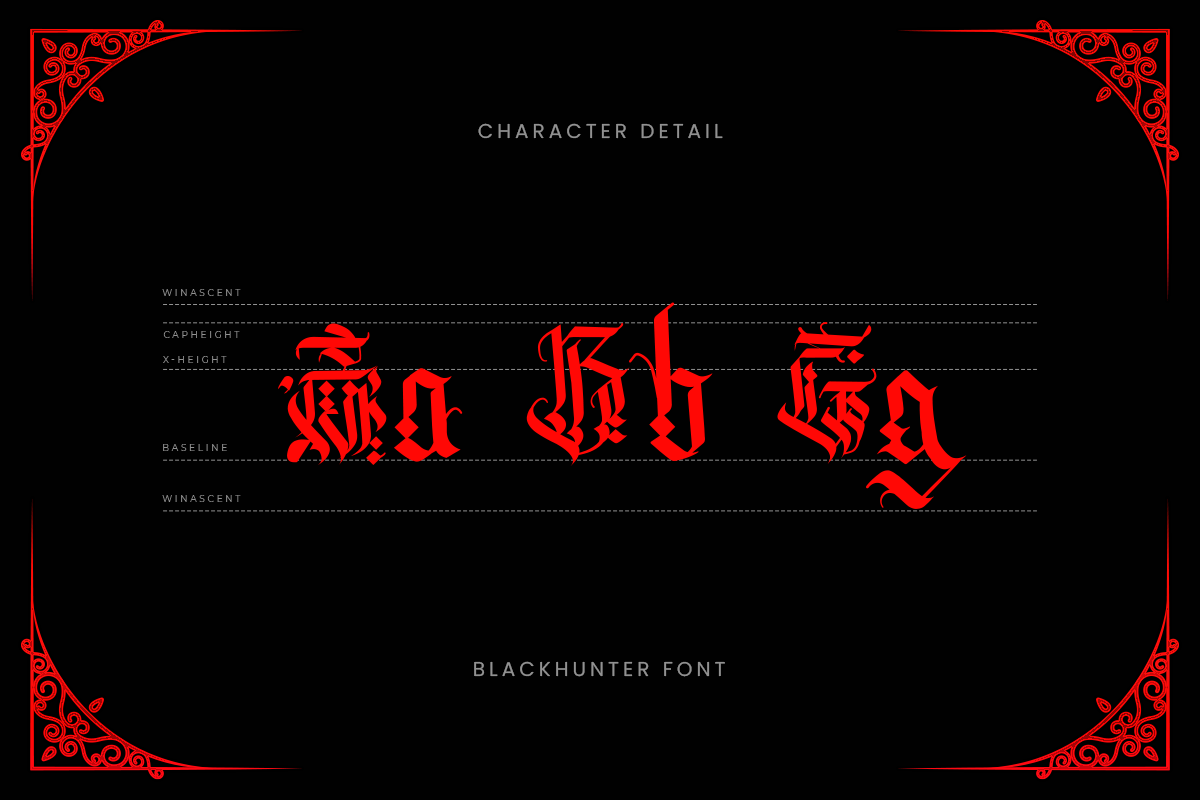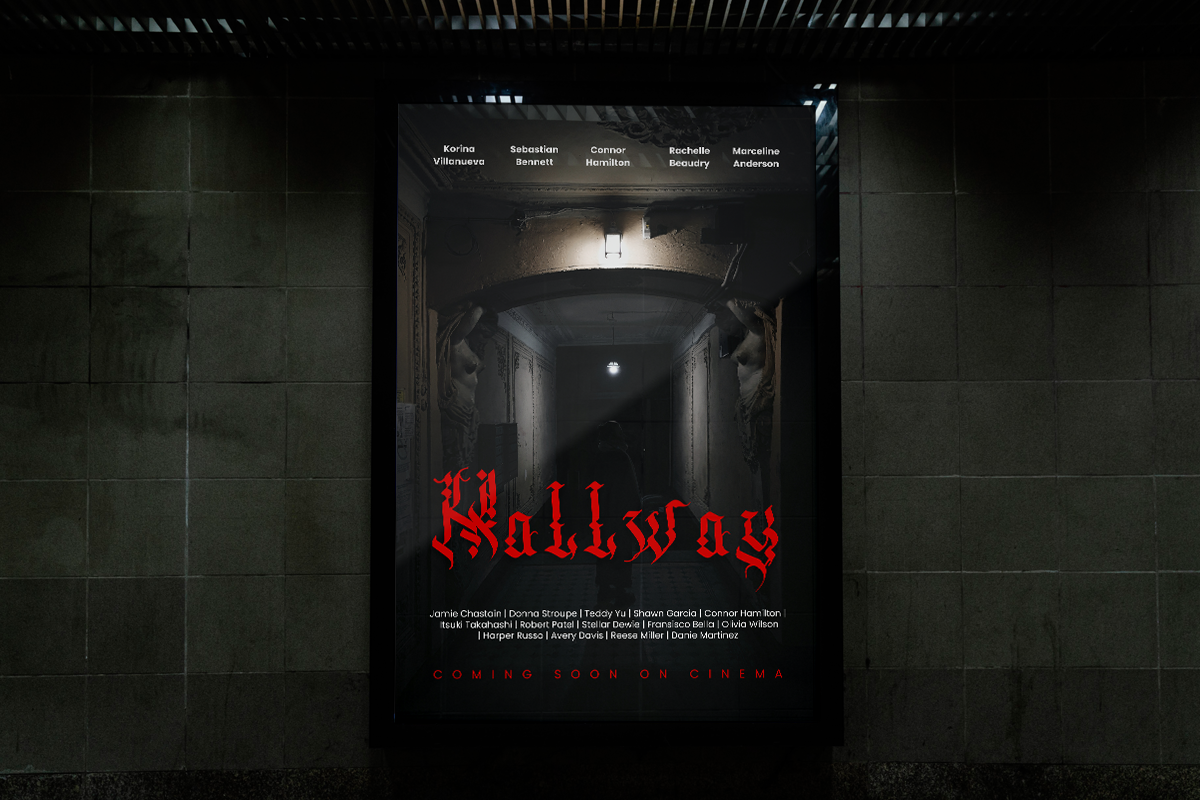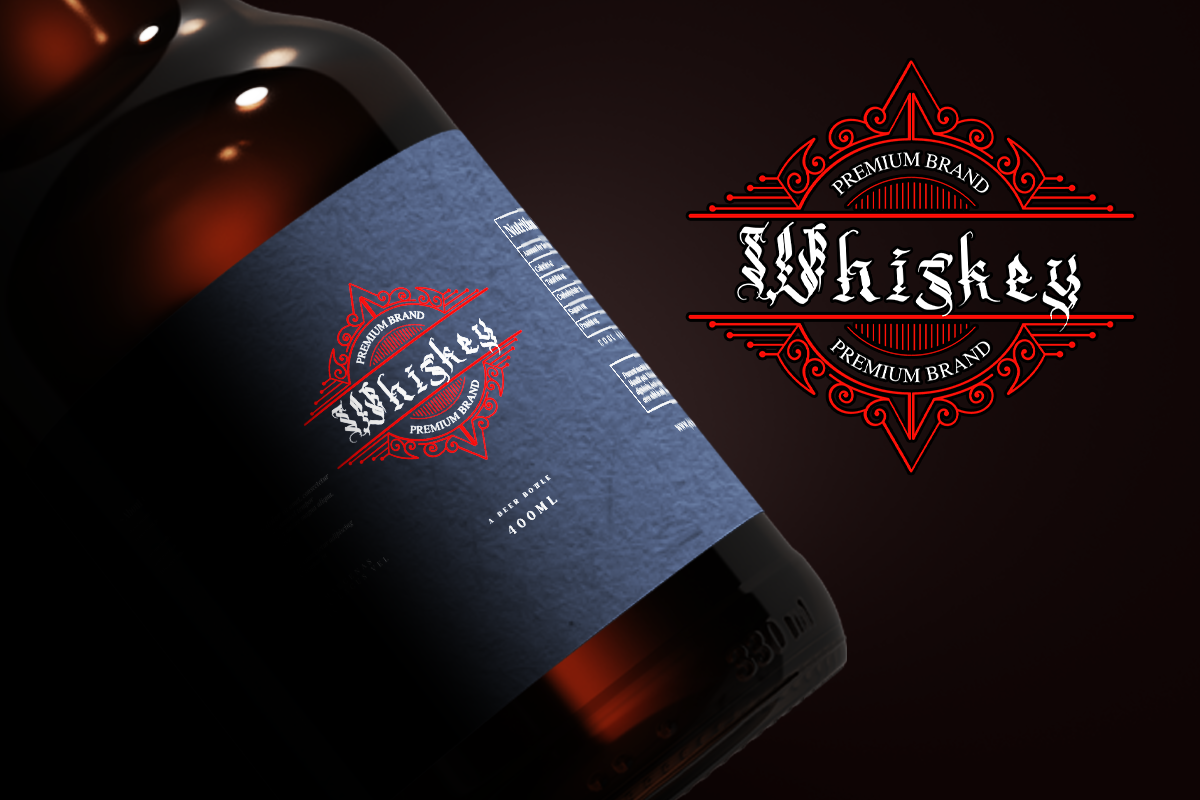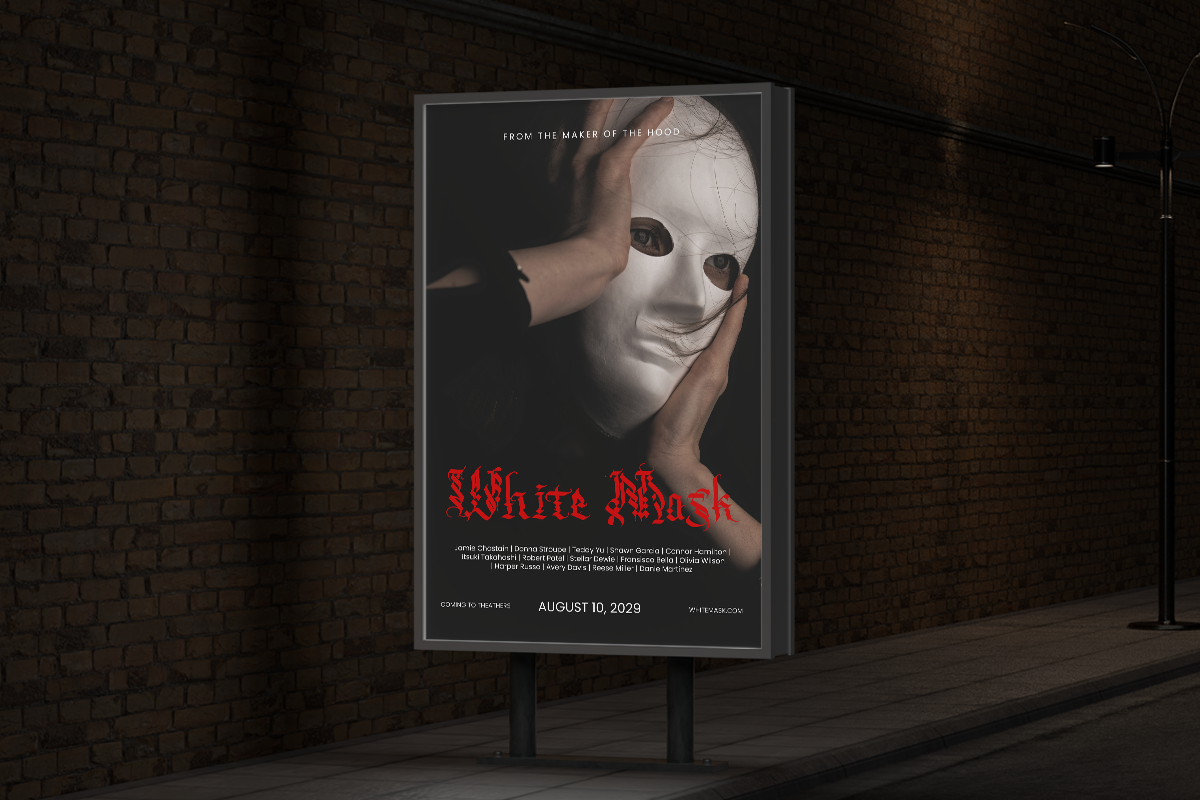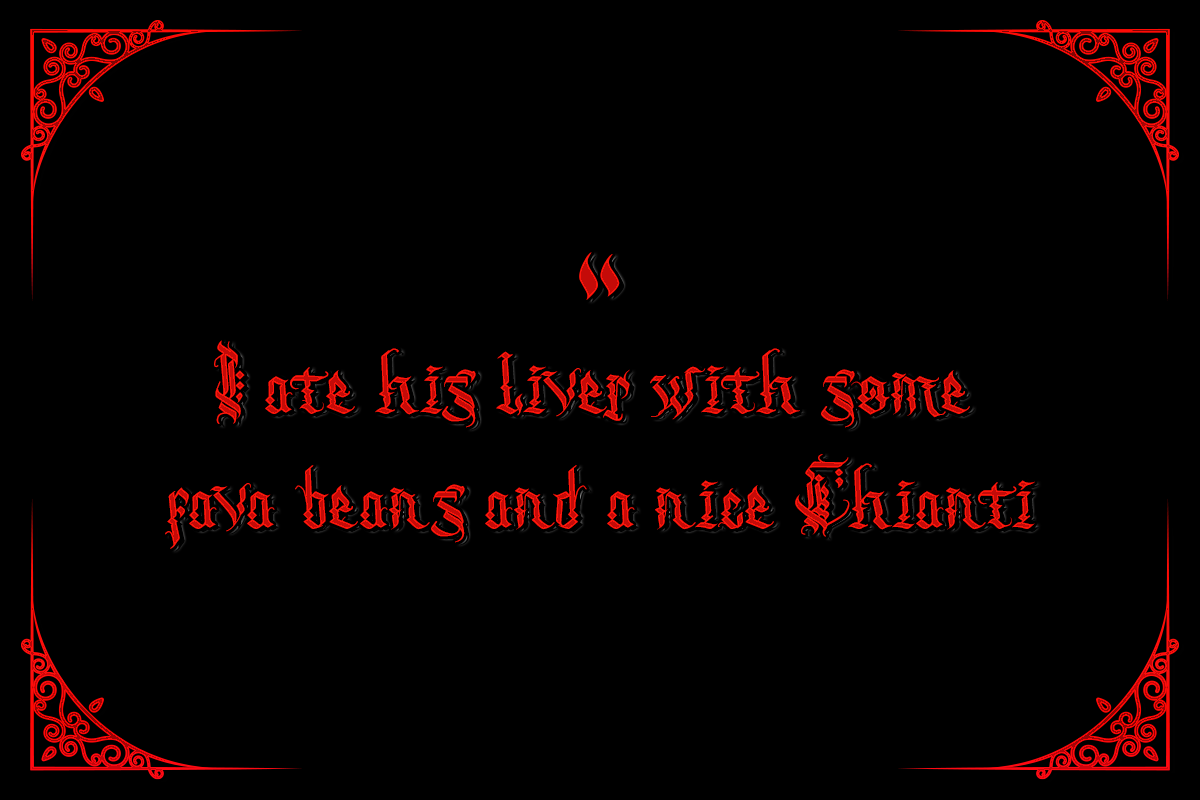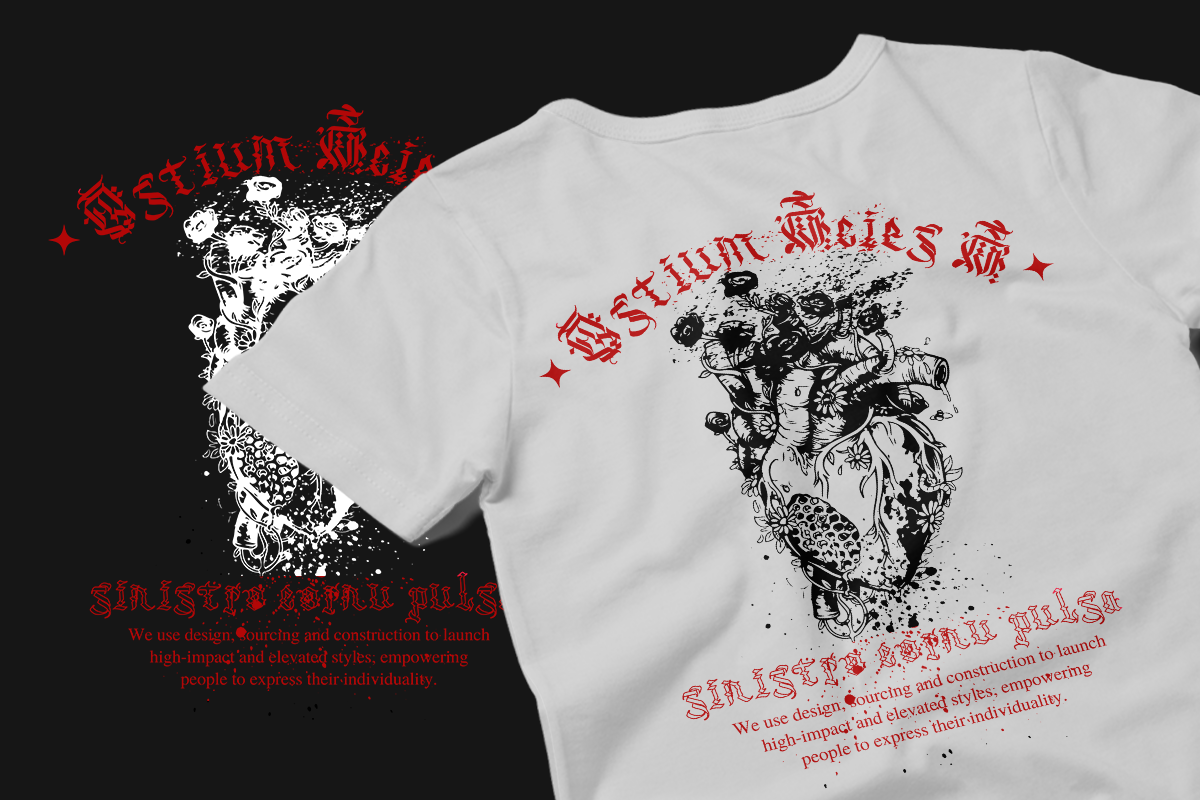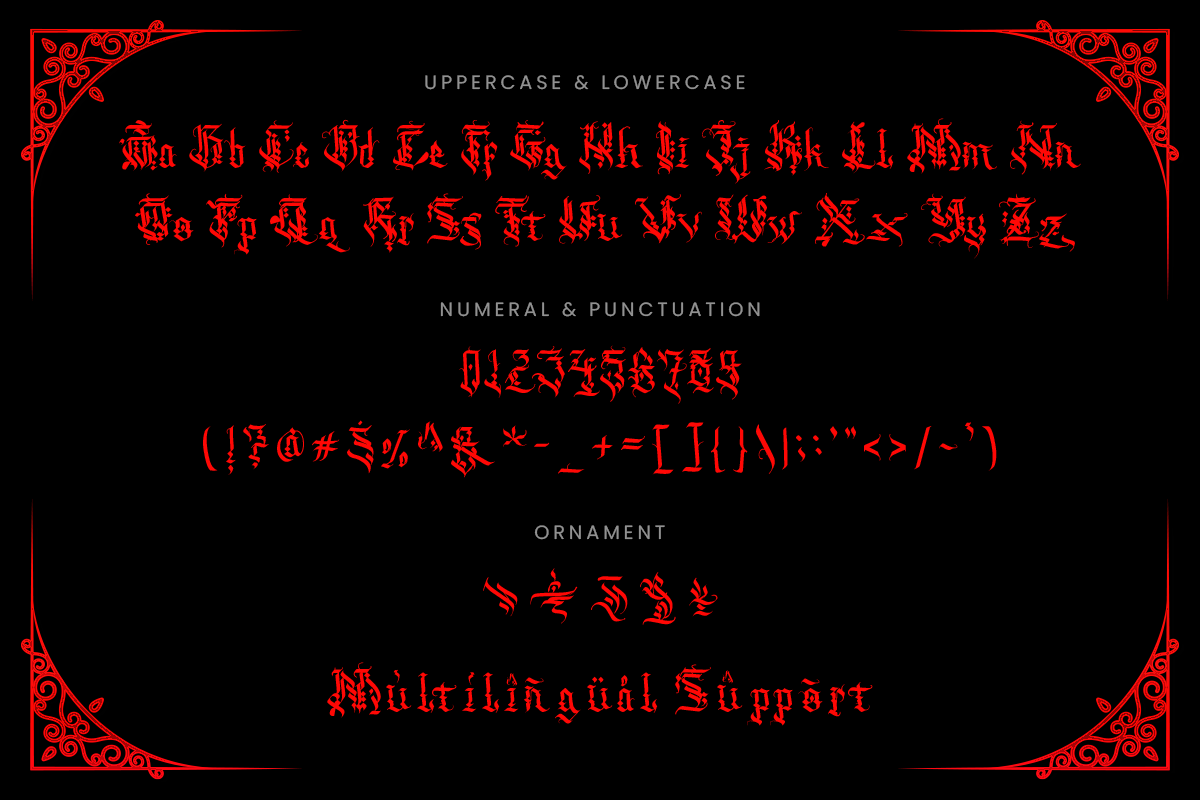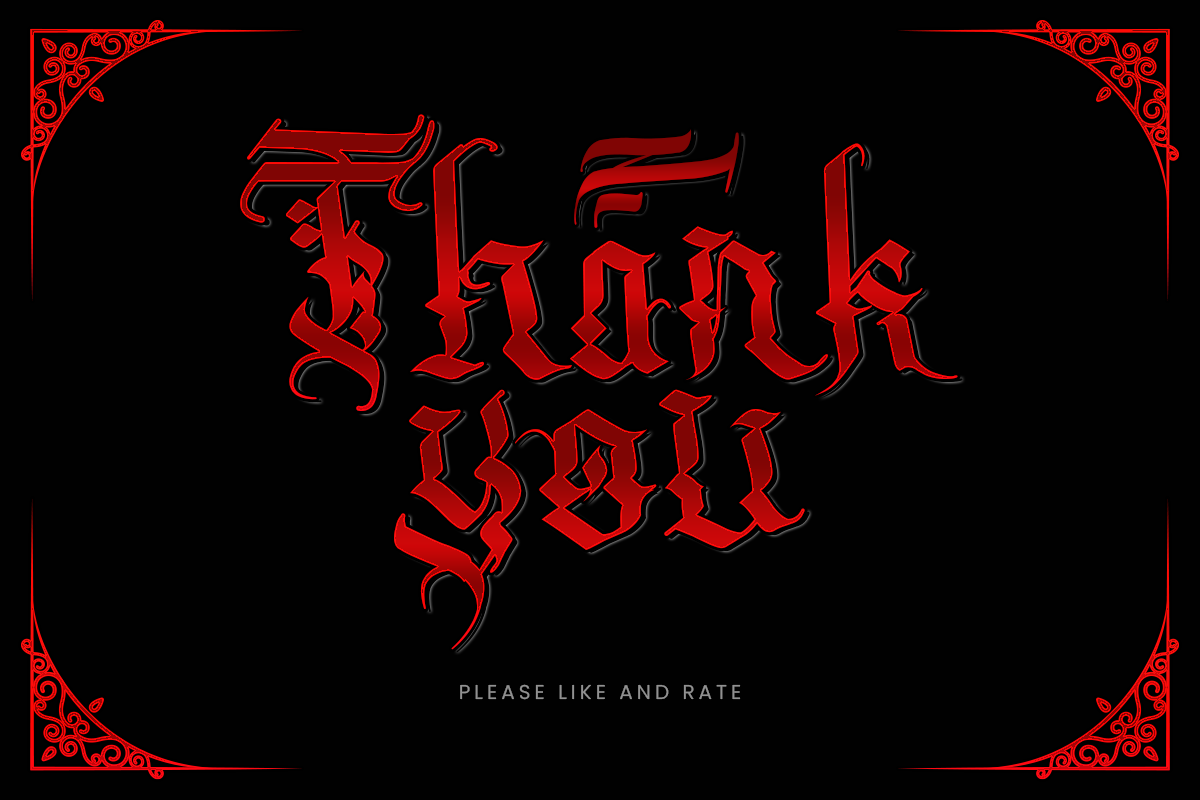
Blackhunter Blackletter Font comes as a part of the gothic modern Blackletter fonts. It has unique and interesting characteristics. We can see how this font is very thick with an atmosphere of horror and darkness that emerges from the carvings on the body of the letters. Each Blackhunter letter is hard to tell apart. This font is eligible. Blackhunter Blackletter Font is the best font to use for horror-themed parties. If you are a creative person and like keeping yourself busy with party preparations, you can use this font for making posters, invitation cards, decorations, and all kinds of banners. The mysterious carvings of this font can help you build a darker and more eerie atmosphere for your party. Apart from being used for parties, this font can be combined with items such as mystery book covers and horror movie posters. If you like gothic and fictional typefaces, you should choose a horror font to add to your collection. This modern blackletter typeface is also perfect for writers looking for a dark-themed font to use in their horror novels or movie titles. This font will amplify the horror vibes on their book covers and videos. You can also use this font for horror movie intros or trailers because the unique design of the font will catch the attention of horror movie viewers. By reinforcing the right visuals, like this font design, you can help build their curiosity and interest. The compatibility is depicted because the Blackhunter font shows a scary impression. For your social media needs, you can use and install fonts in our Blackletter font collection to use as Instagram Fonts, Facebook Fonts, and Twitter Fonts. Like this font app, you can use it in several apps, such as Figma fonts, Canva fonts, Freepik fonts, Adobe fonts, Google fonts, Instagram fonts, and Social Media Fonts. With various explanations about the advantages and uses of the Blackhunter Blackletter Font, you won't regret using this font. This font will be one of the font types to pay attention to in the end to become the choice.